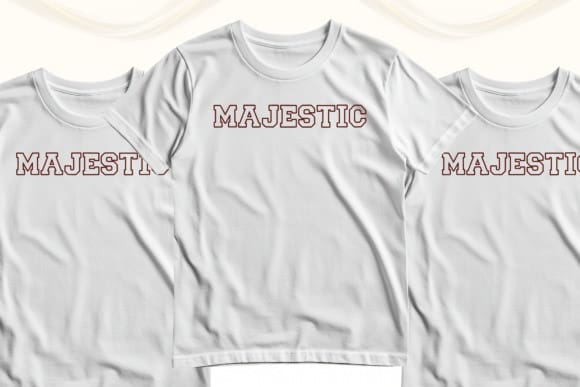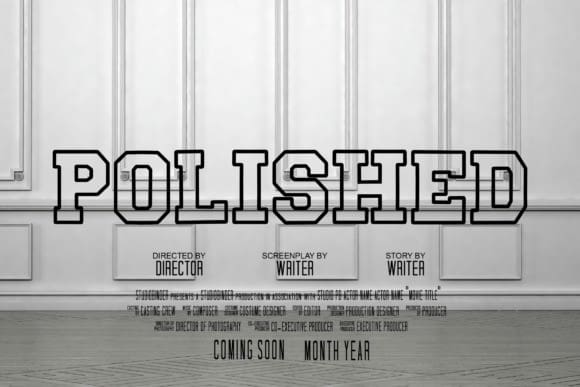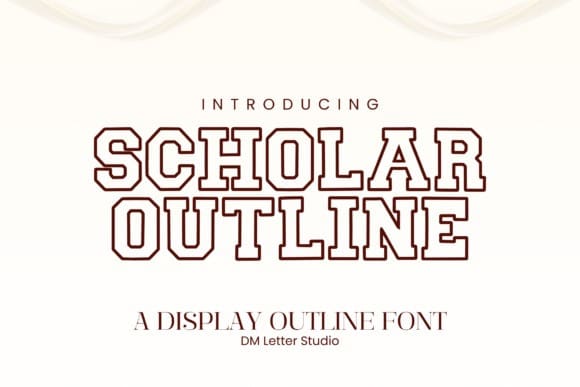
Scholar Block Outline Font
Scholar Block Outline Font is a bold and modern outline varsity font that blends traditional college-style lettering with a clean, outlined twist. Designed for creators who want to bring school spirit into the spotlight without the weight of a filled font, Scholar Block Outline offers a sharp, stylish, and versatile option for eye-catching designs. Whether you’re working on sports posters, team apparel, academic merch, or digital content for YouTube and Instagram, this typeface brings both structure and impact to the table.
The font features sturdy block letterforms that are outlined instead of filled, giving it a fresh and breathable look while maintaining its athletic identity. The outline effect adds visual space and allows for layering or creative coloring—great for high-contrast branding or standout text treatments. Its all-caps format ensures maximum readability and uniformity, making it ideal for headlines, slogans, or initials across various media.
Use Scholar Block Outline to elevate varsity jackets, locker room signs, spirit week graphics, or even esports branding. It works great in print and digital, whether on paper, clothing, or screen. For design flexibility, try combining it with solid varsity fonts or script fonts for a dynamic pairing.